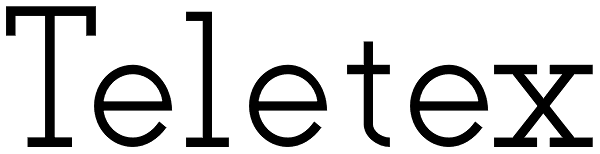
Teletex
A typewriter style slab serif typeface. The design is influenced by the font Rockwell and uses a combination of precise geometry with subtle elliptical curves. The harmony of these elements creates a distinctive and functional typeface suitable for...